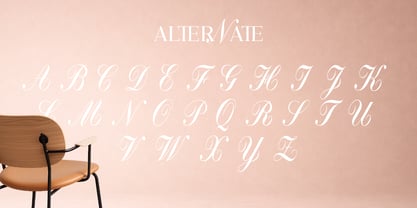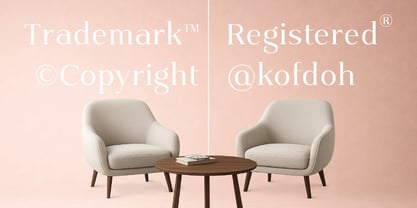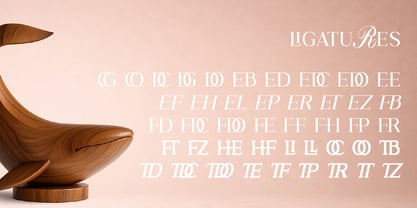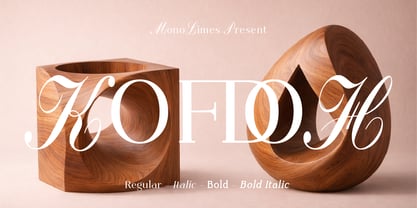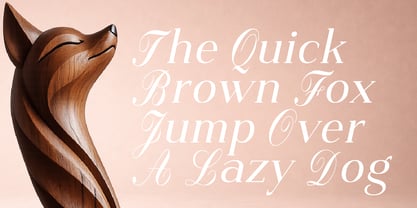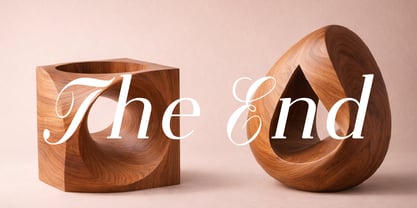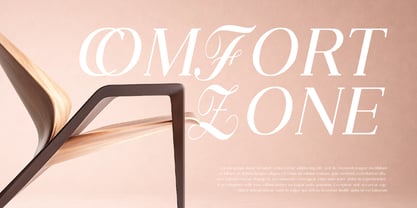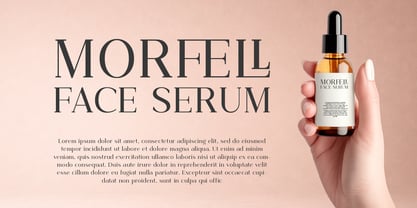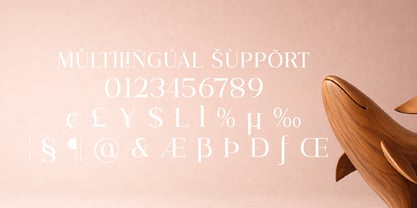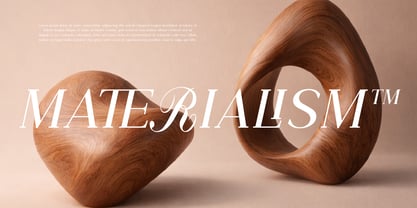
Kofdoh
by Monolimes
The Kofdoh Font Family was designed by Brainy Javanika Putra and published by Monolimes. Kofdoh contains 4 styles and family package options.
Kofdoh – Classy Serif Hybrid is an elegant typeface that blends classic serif sophistication with a modern decorative touch. Designed to deliver a luxurious, refined, and artistic presence, Kofdoh stands out through its graceful stroke contrast, balanced proportions, and expressive ligatures and swashes that enhance character without overwhelming readability. This font strikes a perfect balance between clarity and visual impact, making it an ideal choice for premium branding, fashion editorials, magazine headlines, exclusive logos, product packaging, wedding design, and elevated social media visuals. Its letterforms feel confident yet soft, timeless yet contemporary—representing a brand voice that is polished, stylish, and distinctive. Perfect for: Premium logos & brand identity Editorial headlines & luxury layouts Fashion, beauty, and high-end branding Wedding invitations & stationery Posters, covers, and modern social media design Kofdoh is more than just a font — it’s a statement of classy, modern character.